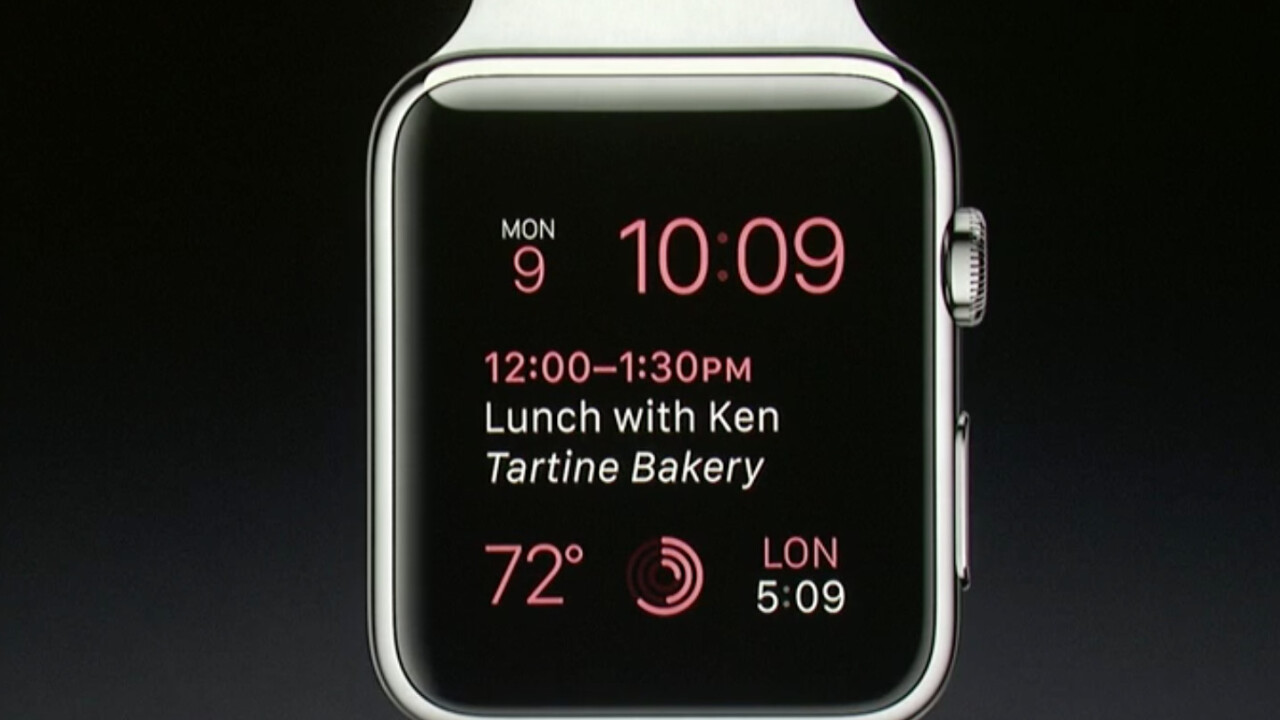
The Apple Watch’s San Francisco font may soon be on all iOS and OS X devices
The San Francisco font found on the Apple Watch may be Apple’s latest standard typeface for all devices.
This change is said to be coming via iOS 9 and OS X 10.11 according to 9to5Mac, both rumored for a WWDC 2015 announcement. San Francisco would replace Helvetica Neue, which made its debut on iOS 7 and OS X Yosemite.
San Francisco was designed specifically for Apple Watch, and is meant for better readability on the small screen. There are two components to the San Francisco font: Text and Display. Text is best for smaller type (small screens or interface elements), while Display is preferred for text at 20-points or larger.
In addition to Apple Watch, the San Francisco font can also be found on the keyboard of the new MacBook.